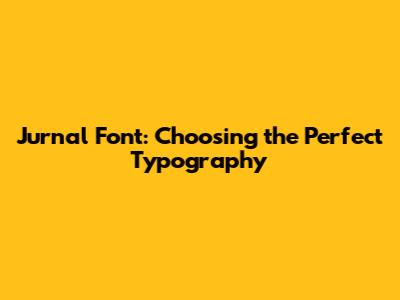
Choosing the right font for your jurnal is super important, guys! It's not just about making things look pretty (though that's definitely a bonus!). The font you pick plays a huge role in how readable and engaging your jurnal is. Think about it: a cluttered, hard-to-read font can turn readers off, no matter how amazing your content is. On the flip side, a clean, well-chosen font can make your jurnal a joy to read, keeping people hooked from start to finish. In this article, we'll dive deep into the world of jurnal fonts, exploring what makes a font effective, how to choose the best one for your needs, and some top font recommendations to get you started. Whether you're creating a personal diary, a professional blog, or an academic publication, understanding the power of typography is key to making your jurnal stand out. So, let's get started and unlock the secrets to perfect font selection!
Understanding the Importance of Fonts in Journals
Fonts are incredibly important in journals. Seriously, think of them as the unsung heroes of your writing! It's all about readability first and foremost. You could have the most brilliant ideas ever put on paper, but if your font is a hot mess, nobody's going to stick around long enough to appreciate them. Imagine trying to read a whole jurnal written in some super-fancy, swirly font – your eyes would be screaming for mercy in about five minutes! A good font makes reading effortless, allowing your audience to focus on your words and ideas, not on deciphering what you've written. Readability means choosing a font that's clear, with well-defined letterforms and ample spacing. Think classic serifs like Times New Roman or clean sans-serifs like Arial. These fonts are designed to be easy on the eyes, even for long stretches of reading. A readable font ensures your message is easily received and understood. Beyond readability, fonts also set the tone and mood of your jurnal. A playful, whimsical font might be perfect for a personal blog about hobbies, but it would be totally out of place in a serious academic paper. The font you choose communicates something about your style, your brand, and the overall purpose of your jurnal. A sleek, modern sans-serif can give a sense of professionalism and innovation, while a traditional serif font might evoke feelings of trust and authority. Consider the message you want to convey and choose a font that aligns with it. Different fonts create different effects on the reader and should be considered carefully.
Furthermore, the right font can dramatically improve the overall aesthetic appeal of your jurnal. Think of your font as part of the visual design – it's not just about the words themselves, but how those words are presented. A well-chosen font can make your jurnal look polished, professional, and inviting. This is especially important for online journals and blogs, where first impressions matter. In the digital world, visuals are king, and your font is a crucial part of that visual package. If you're creating a jurnal for print, font choice is even more critical. Factors like line height, kerning, and leading all come into play, affecting how the text looks and feels on the page. A well-designed font can make your jurnal a pleasure to hold and read, adding a touch of elegance and sophistication. In short, the right font is much more than just a stylistic choice – it's a fundamental element of effective communication. Pay attention to your fonts, and your jurnal will thank you for it!
Factors to Consider When Selecting a Journal Font
Okay, so you know why fonts are important, but how do you actually choose the right one? There are several key factors to keep in mind to ensure you pick a font that's both readable and visually appealing. Think about your audience and purpose. Are you writing for a general audience, or a specific group of experts? Is your jurnal intended to be informative, persuasive, or entertaining? The answers to these questions will help guide your font selection. For example, if you're writing a scientific jurnal, you'll want to stick with a clean, professional font that conveys authority and credibility. On the other hand, if you're creating a personal blog about travel, you might have more freedom to experiment with more creative and playful fonts. The point is to choose a font that resonates with your audience and supports the overall message of your jurnal. Style is also important. Is your journal academic or more informal? Consider what fits the style of the journal.
Readability, of course, should be your top priority. No matter how stylish a font is, it's useless if it's difficult to read. Look for fonts with clear, well-defined letterforms, adequate spacing, and a comfortable x-height (the height of lowercase letters). Avoid fonts that are too condensed, too ornate, or too unusual, as these can strain the eyes and make reading a chore. Test your chosen font by printing out a sample page or viewing it on different devices to see how it looks in different contexts. Pay attention to how the font looks in both body text and headings, and make sure it's legible at various sizes. Don't forget about font pairing. Most journals use a combination of fonts for headings, body text, and captions. Choosing fonts that complement each other can add visual interest and hierarchy to your jurnal, but it's important to do it carefully. A good rule of thumb is to pair a serif font with a sans-serif font, or to use different weights and styles within the same font family. Avoid using too many different fonts, as this can create a cluttered and confusing look. Stick to two or three fonts at most, and make sure they work well together. Finally, consider the technical aspects of font selection. Make sure the font you choose is available in the formats you need (e.g., TrueType, OpenType) and that it's compatible with your publishing platform or software. If you're creating a jurnal for the web, choose web-safe fonts that are widely supported by different browsers. You should consider the legibility of the font and if it is easy on the eyes. Also, be mindful of licensing issues and make sure you have the right to use the font for your intended purpose. By considering all these factors, you can make an informed decision and choose a font that will enhance the readability, visual appeal, and overall effectiveness of your jurnal.
Top Font Recommendations for Journals
Alright, let's get down to the nitty-gritty: what are some actual fonts you should consider for your jurnal? There are tons of options out there, but here are a few top recommendations, broken down by category, to get you started. For classic and timeless look, consider Serif Fonts. These fonts have small decorative strokes (called serifs) at the ends of the letters, giving them a traditional and elegant feel. They're often a great choice for academic journals, formal publications, and anything that needs to convey authority and credibility. Times New Roman is the undisputed king of serif fonts. It's been a staple of publishing for decades, and for good reason: it's highly readable, versatile, and widely available. While some might consider it a bit overused, it's still a solid choice for many journals. Garamond is another classic serif font that's known for its elegance and readability. It has a slightly more refined and sophisticated feel than Times New Roman, making it a great choice for journals that want to project a sense of style. Georgia is a serif font that was specifically designed for the screen, making it a great choice for online journals and blogs. It has a slightly larger x-height than Times New Roman, which makes it easier to read on smaller screens. For clean and modern designs, Sans-Serif Fonts are a great option. These fonts lack the decorative serifs of serif fonts, giving them a clean, modern, and minimalist look. They're often a good choice for online journals, blogs, and publications that want to project a sense of innovation and simplicity. Arial is a widely used sans-serif font that's known for its clean lines and readability. It's a versatile font that can be used for both body text and headings, making it a great choice for journals that want a simple and straightforward look. Helvetica is another popular sans-serif font that's known for its neutrality and versatility. It's a great choice for journals that want to convey a sense of objectivity and professionalism. Open Sans is a sans-serif font that was designed for readability on screens. It has a slightly wider letterform than Arial and Helvetica, which makes it easier to read on smaller screens. Looking for something a little different? Try Display Fonts. These fonts are designed to be used for headings, titles, and other display elements, rather than for body text. They often have more personality and flair than serif or sans-serif fonts, and can be used to add visual interest to your jurnal. Lobster is a bold and eye-catching display font that's perfect for headlines and titles. It has a retro, vintage feel that can add a touch of fun and personality to your jurnal. Playfair Display is an elegant and sophisticated display font that's perfect for journals that want to project a sense of style and luxury. It has a high contrast between thick and thin strokes, which gives it a distinctive and eye-catching look. Montserrat is a versatile display font that can be used for both headings and body text. It has a modern and geometric feel that's perfect for journals that want to project a sense of innovation and creativity. Remember to always test your chosen fonts in different sizes and contexts to make sure they look good and are easy to read.
Font Pairing: Creating Visual Harmony
Font pairing is the art of combining different fonts in a way that creates visual harmony and enhances the overall look and feel of your jurnal. It's not just about throwing a bunch of random fonts together – it's about choosing fonts that complement each other and work together to create a cohesive and appealing design. A good font pairing can add visual interest, hierarchy, and personality to your jurnal, while a bad font pairing can create a cluttered and confusing look. So, how do you create a successful font pairing? A classic approach is to combine a serif font with a sans-serif font. This is a tried-and-true method that works well in many different contexts. The serif font can be used for body text to provide readability and a sense of tradition, while the sans-serif font can be used for headings to add a touch of modernity and contrast. For example, you could pair Times New Roman (serif) with Arial (sans-serif), or Garamond (serif) with Helvetica (sans-serif). Another approach is to use different weights and styles within the same font family. This can be a more subtle way to create contrast and hierarchy, while still maintaining a cohesive look. For example, you could use a bold weight for headings and a regular weight for body text, or you could use an italic style for captions and pull quotes. This approach works particularly well with versatile font families like Open Sans, which has a wide range of weights and styles to choose from. Don't be afraid to experiment with different font combinations, but always keep readability and visual harmony in mind. Try pairing fonts that have contrasting personalities, or fonts that share similar characteristics. Use online tools and resources to find inspiration and see how different font combinations look in real-world examples. Pay attention to the details, such as letter spacing, line height, and font size, to ensure that your font pairing looks polished and professional. Ultimately, the best font pairing is the one that works best for your specific jurnal and target audience. Trust your instincts, but always test your font pairings to make sure they look good and are easy to read. Some considerations should be made. Make sure the two fonts you choose match the style and mood of the journal. The font you choose should work well together. Do not pick something that does not match because it will have a negative impact on the journal. You should also make sure that the fonts that you choose are legible and complement each other.
Tools and Resources for Font Selection
Finding the perfect font can feel like searching for a needle in a haystack, but luckily, there are tons of tools and resources available to help you narrow down your options and make the right choice. One of the most useful resources is Google Fonts. This is a free library of over 1,000 fonts that are available for both personal and commercial use. You can browse fonts by category, style, and popularity, and you can even test them out in your browser before downloading them. Google Fonts also provides helpful information about each font, such as its designer, its license, and its recommended pairings. Another great resource is Adobe Fonts (formerly Typekit). This is a subscription-based service that gives you access to thousands of high-quality fonts from some of the world's leading type foundries. Adobe Fonts is integrated with Adobe Creative Cloud, so you can easily use the fonts in your design projects. However, it is not free and requires a subscription to access the fonts available. For font pairing inspiration, check out websites like FontPair and Canva Font Combinations. These sites showcase different font pairings and provide helpful tips and advice on how to create your own successful combinations. You can browse font pairings by category, style, and mood, and you can even see how they look in real-world examples. If you're looking for a font identifier, try WhatTheFont. This tool allows you to upload an image of a font and it will identify the font for you. This can be helpful if you see a font you like in a magazine, book, or website, and you want to find out what it is. There are also many font management tools available, such as FontBase and RightFont. These tools help you organize your fonts, activate and deactivate them as needed, and preview them in different applications. They can be particularly useful if you have a large font library and you want to keep it organized. Remember to always test your chosen fonts in different sizes and contexts to make sure they look good and are easy to read. And don't be afraid to experiment with different font combinations until you find the perfect one for your jurnal.
Conclusion
So, there you have it, guys! A deep dive into the wonderful world of jurnal fonts. Choosing the right font is an essential part of creating a successful and engaging jurnal, whether it's a personal diary, a professional blog, or an academic publication. By understanding the importance of readability, considering the factors that influence font selection, and exploring the top font recommendations and font pairing strategies, you can create a jurnal that looks great and is a joy to read. Remember, your font is more than just a stylistic choice – it's a fundamental element of effective communication. Choose wisely, experiment creatively, and always prioritize readability. With the right font, your jurnal can stand out from the crowd and make a lasting impression on your readers. Happy writing!